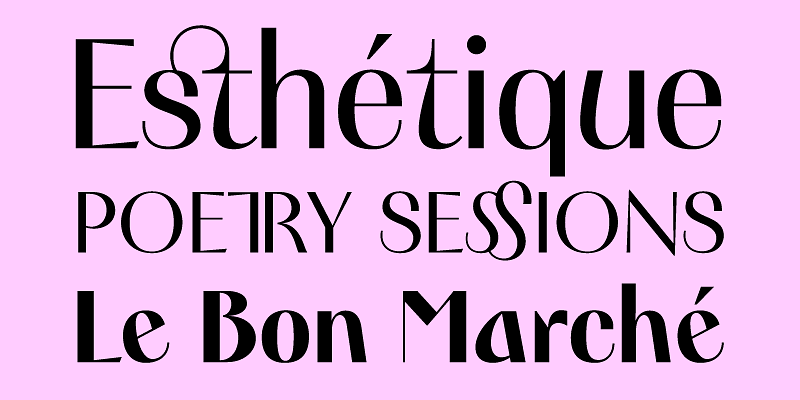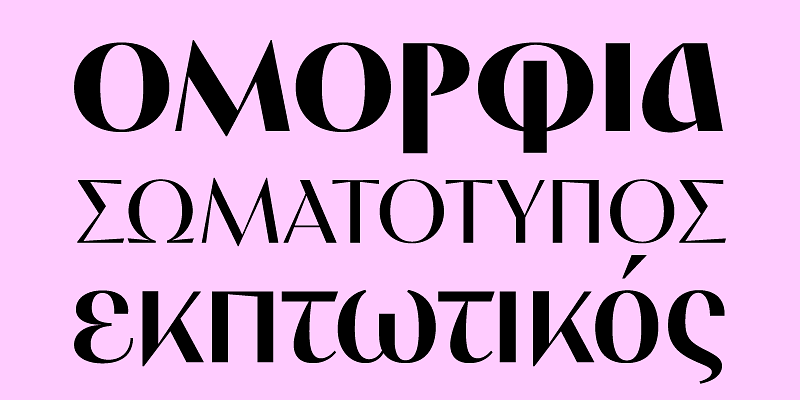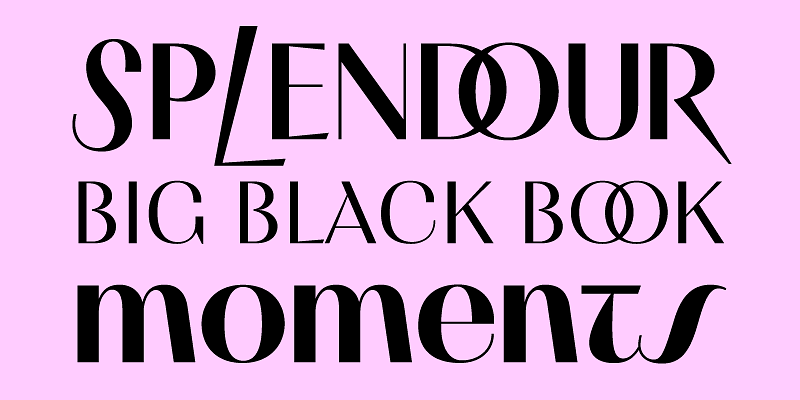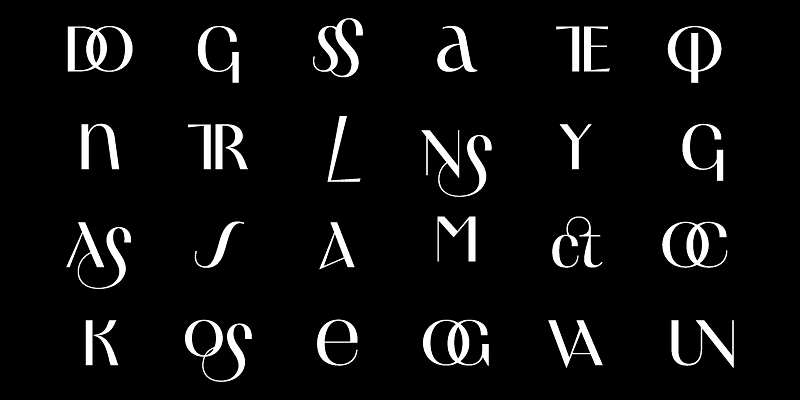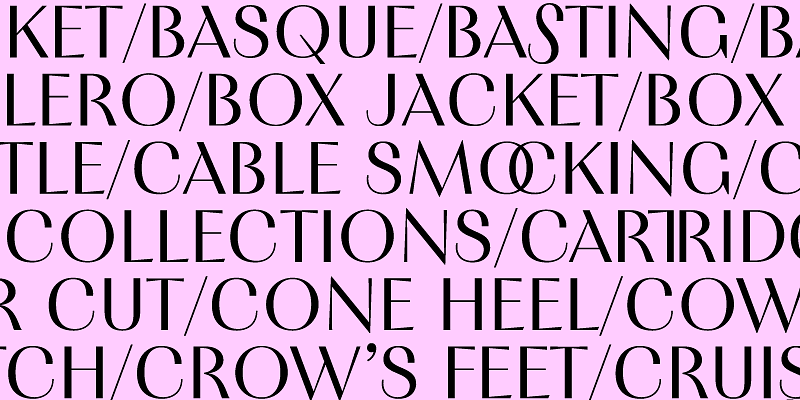
Marlet is a beautiful and inspiring set of typographic elements based on a minimal and simplistic approach to elegance. Originally designed as a single-style font for a Mexican cosmetics institute and its exclusive make-up and skincare line aimed at upper-middle income bracket women, Marlet has progressively bloomed.
Parachute Typefoundry’s type system is made for timeless elegance through numerous combinations diverting from passing trends in type design. Inspiration came from the roaring 20s and 30s, decades that embraced women’s independence both socially and politically. Taking intricate hints from the era whilst maintaining approachability, the contemporary dynamic version of this humanist typeface evolved with modulated strokes. Its thick-thin, serif-less strokes express the modernity of the fashion industry, breaking away from the monotone sans serif.
A type system with contrast progressing from low (Text version) through medium (Display) to high (Finesse), with differentiated letter widths (Titling), extravagant letterforms (Swash) and finally 64 eclectic patterns (Motifs), Marlet evolved from a single typeface into a comprehensive type system in various weights which support Latin, Greek and Cyrillic.
Contrary to other Marlet families, the sophisticated capitals of the Display version come with slightly tapered strokes in order to embody the contemporary qualities of a sans serif typeface into the dynamic virtue of a serif. Simple and elegant at the same time and in contrast to Didot and Bodoni, Marlet is typeface that is nonconformist, multifaceted, fashionable and romantic, strong and chic, casual yet provocative.